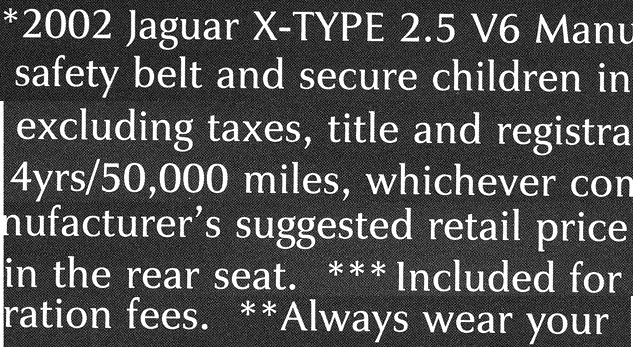
I *really* need to find out about the font in the
GIFs below. Please do not email me the font in case
you have it. I simply need to know who made it (his
or her email address), when, and "why"/how.
What I know is that it's the font used for
the identity of the new Jaguar X-Type.
Still puzzled over the type's origin.
Sorry I can't help with the type specimen. It is quite nice.
Looks like it may have been a classic Serif that was de-serified a bit. it is beautiful.
It's a beautiful font, alright.
Since it's being used in Jaguar advertisements, it strikes me as possible-to-likely that it might be a privately commissioned font.